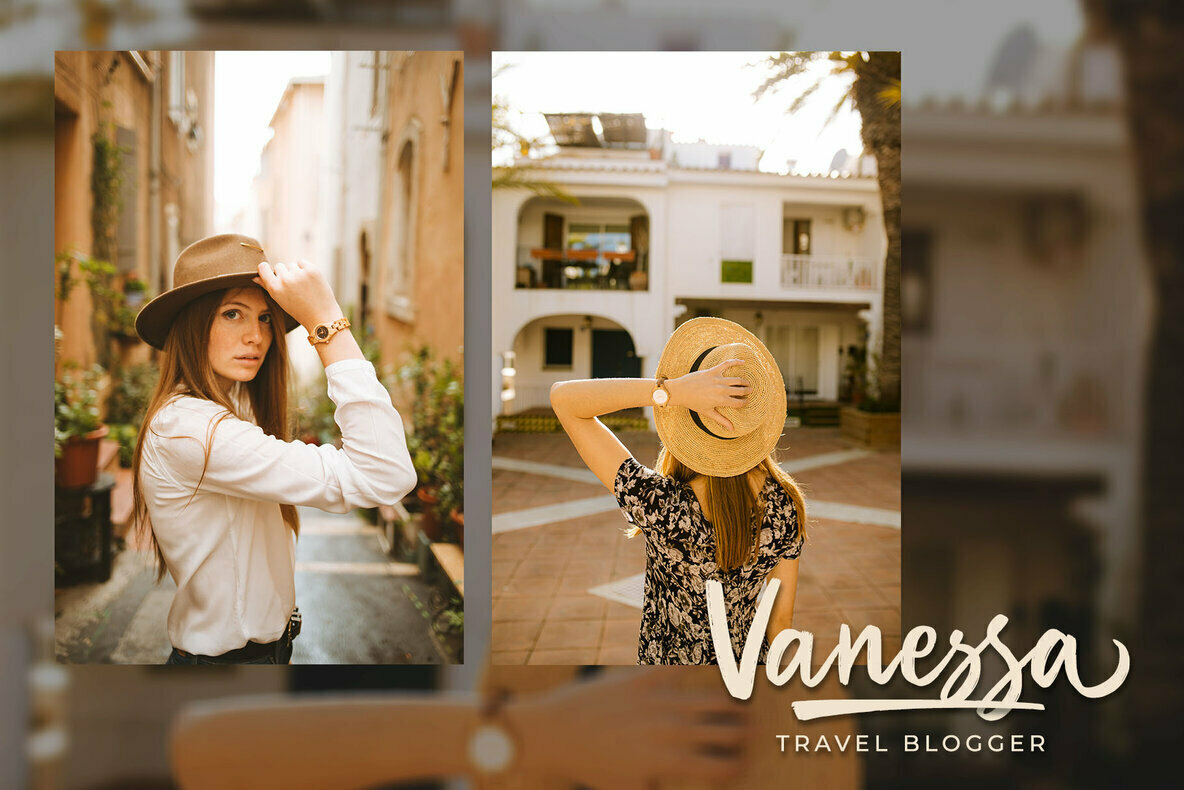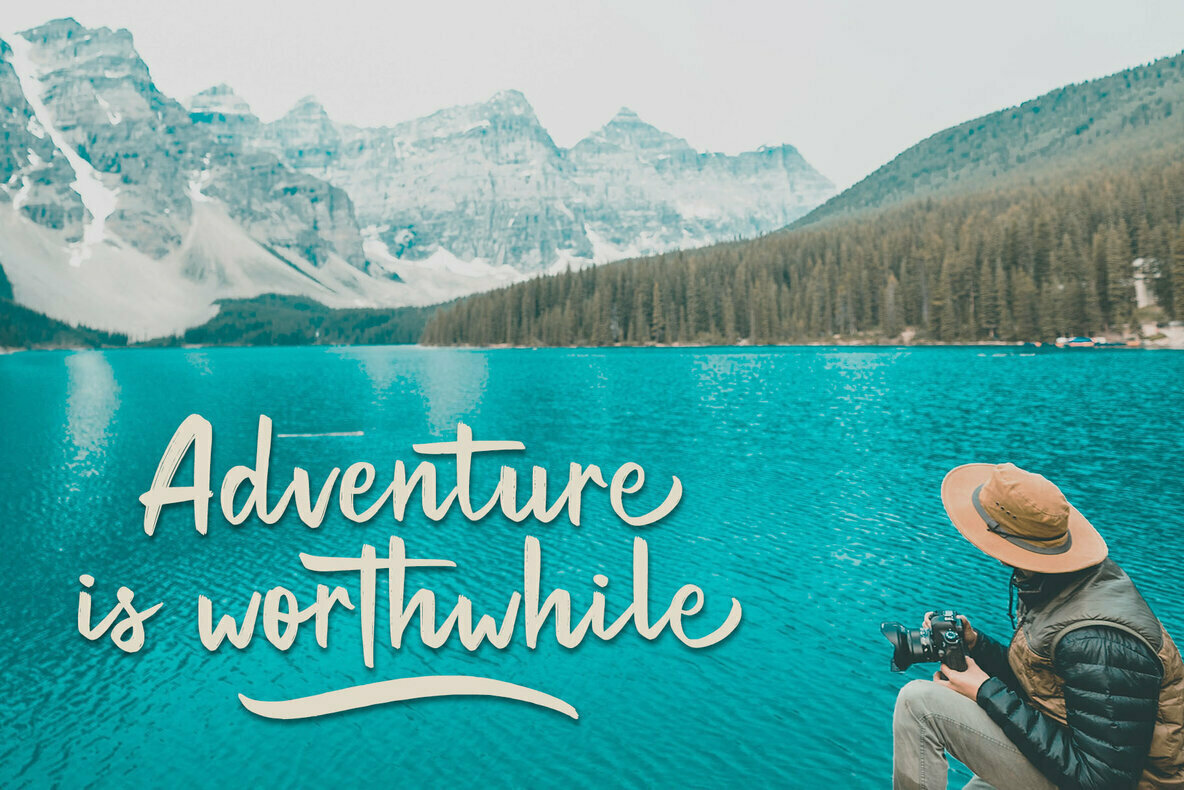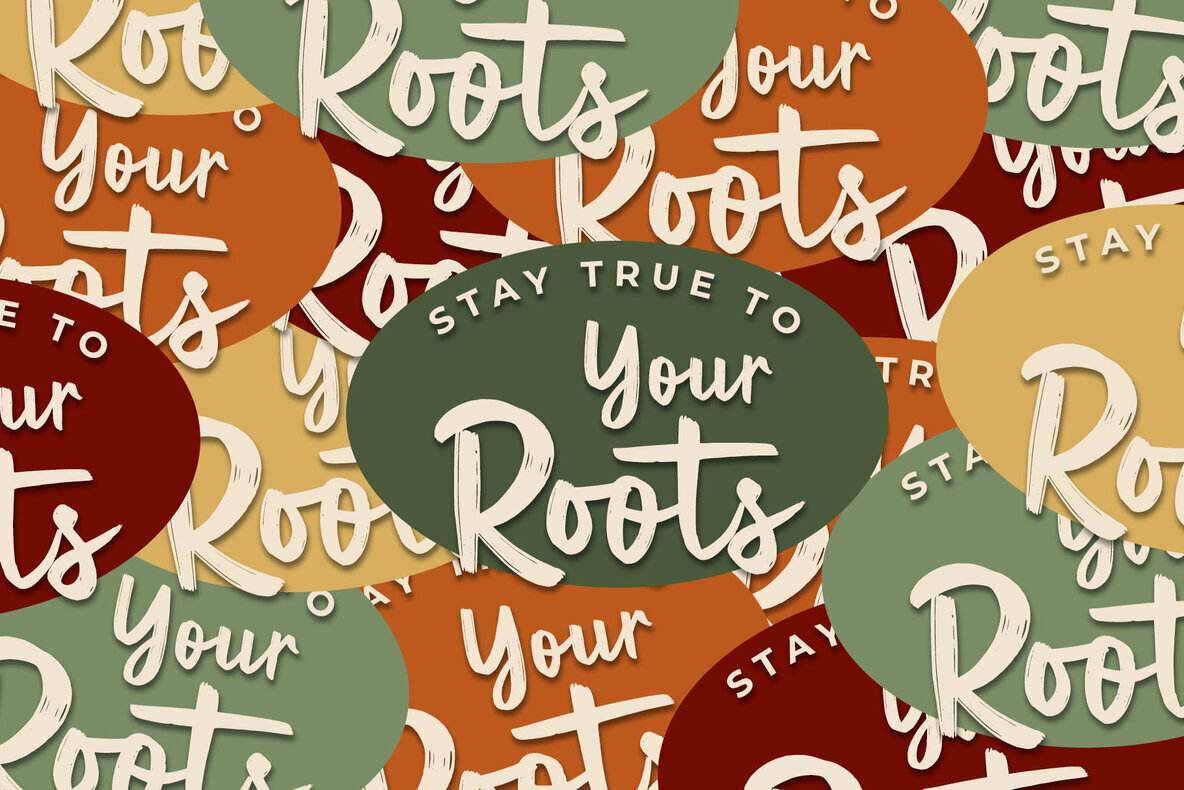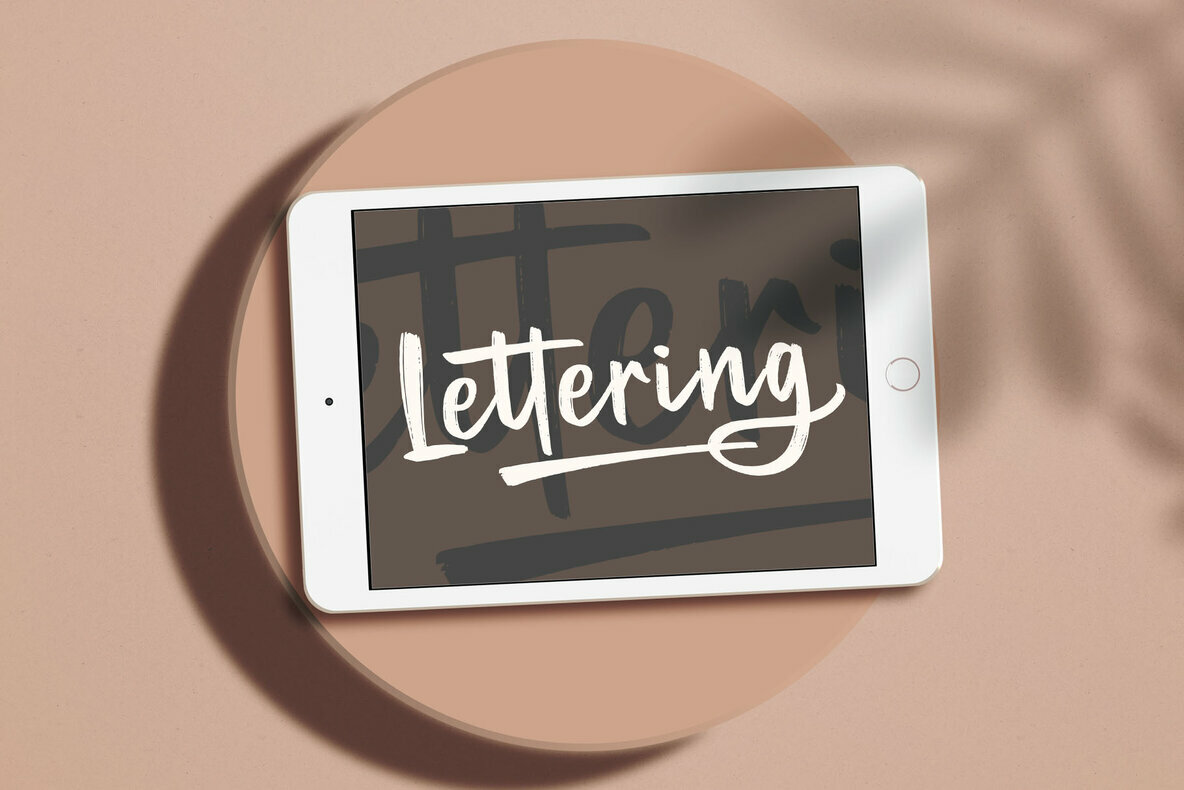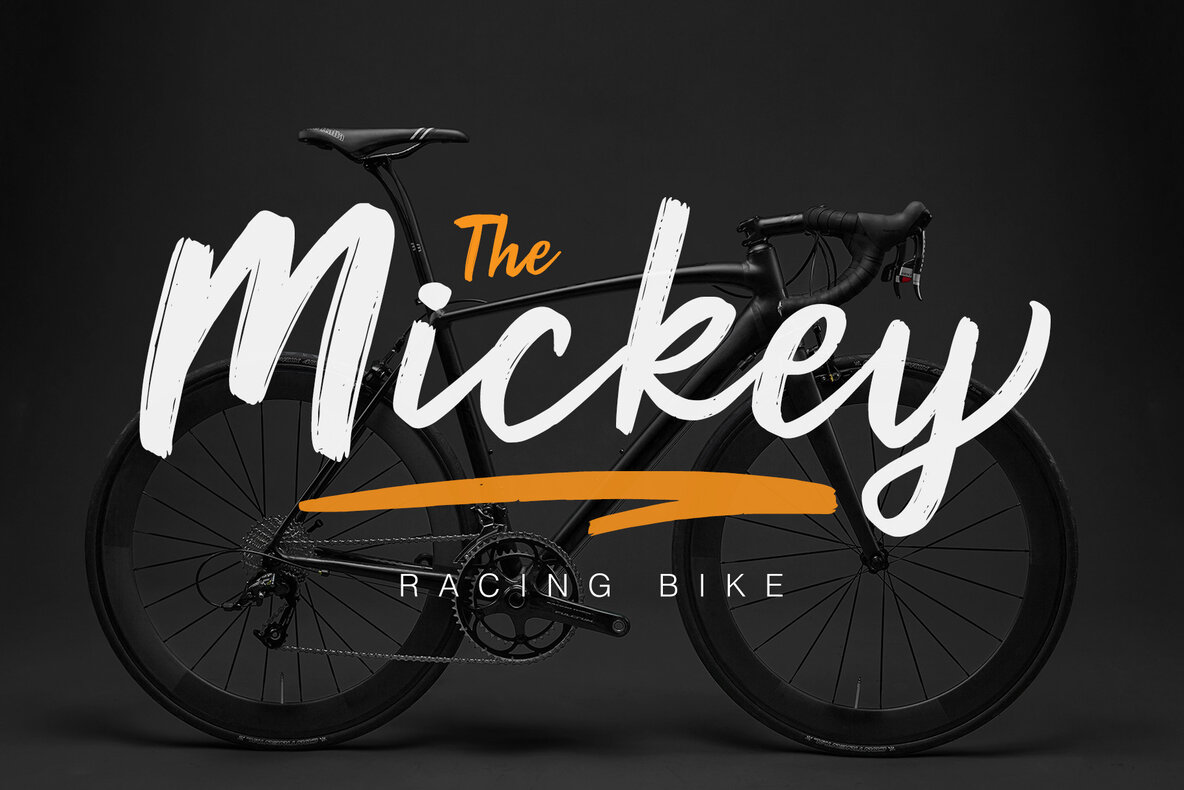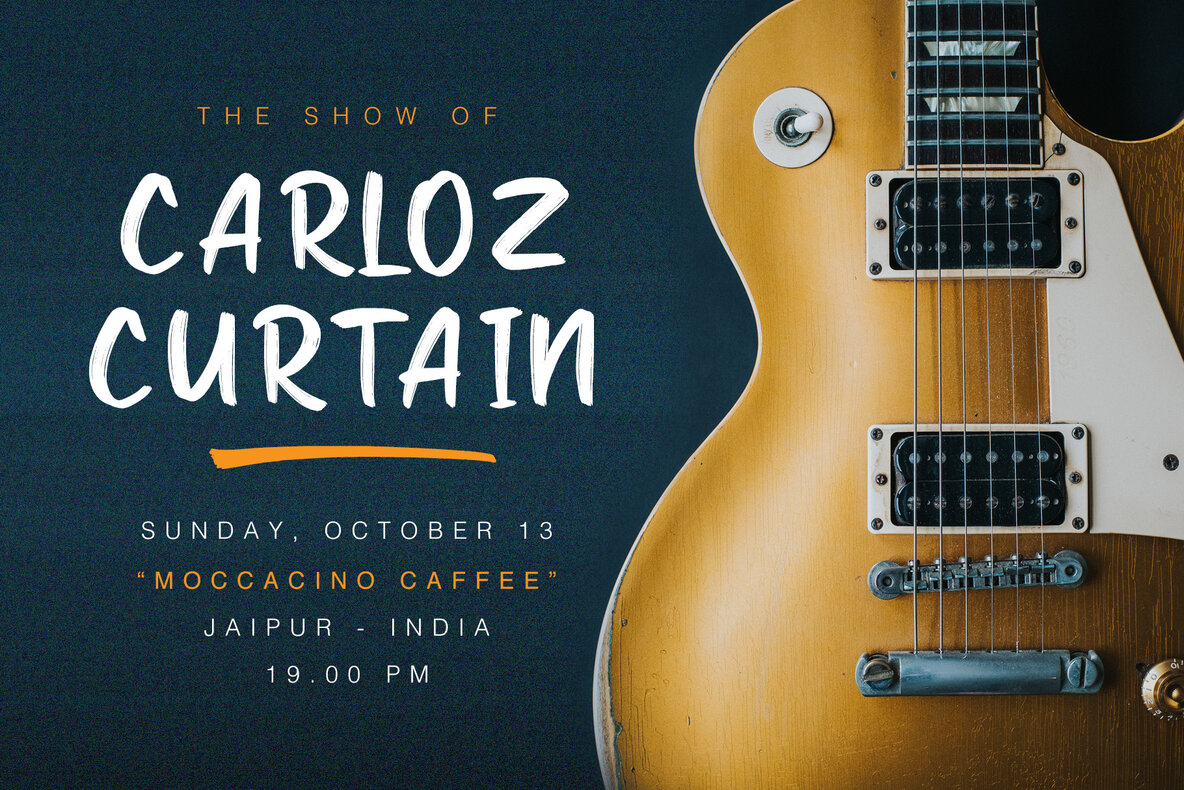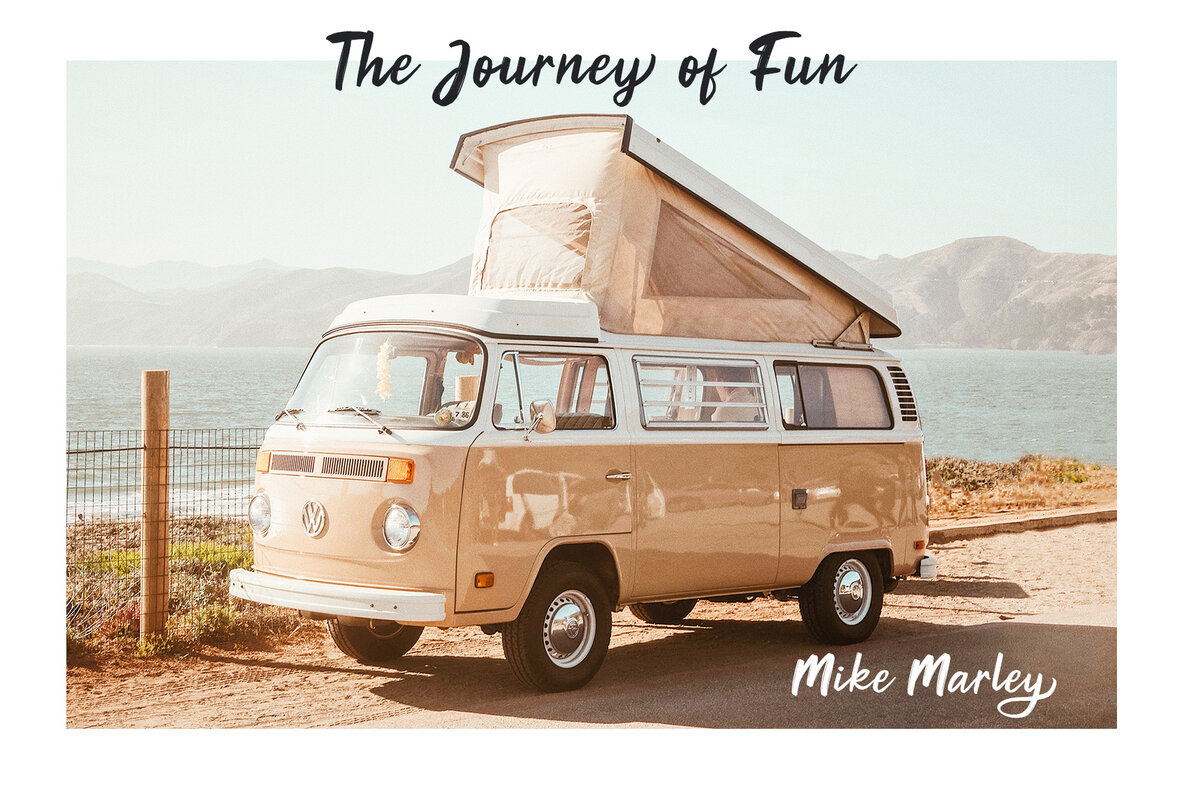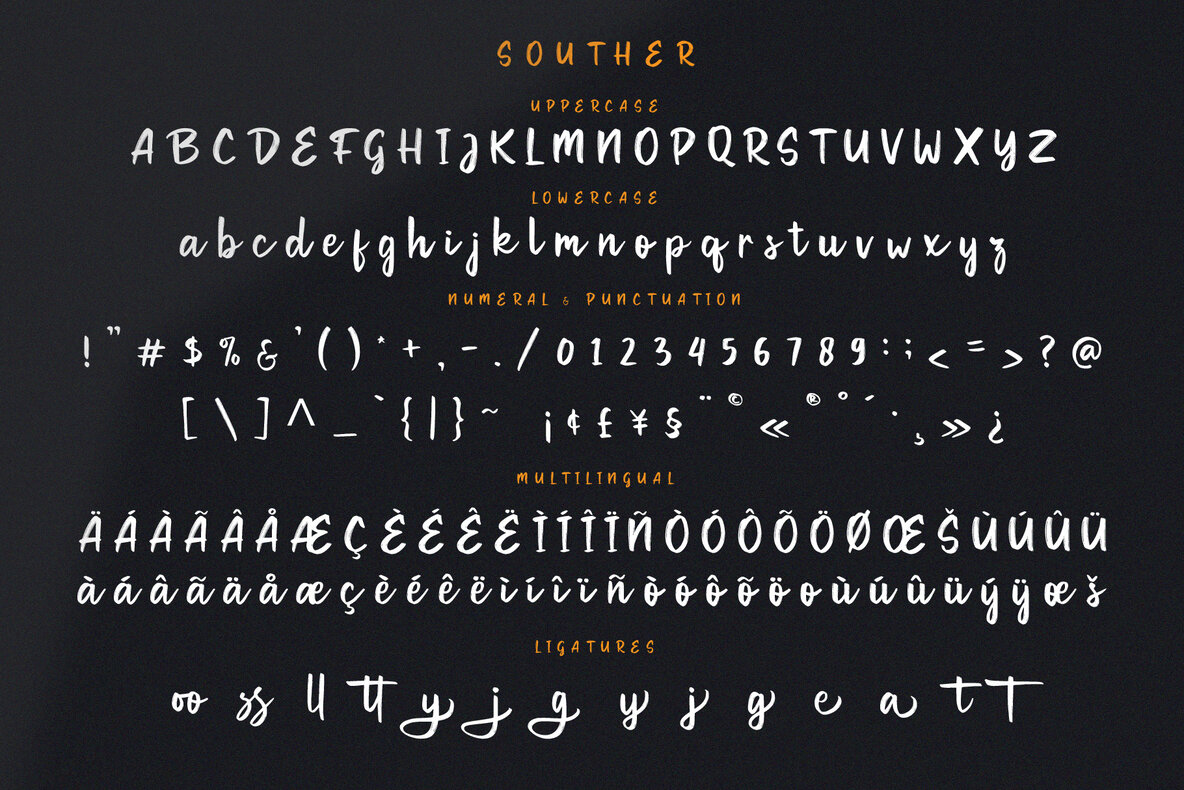
Souther Font
Infusing your creative projects with a touch of elegance, Souther Brush Script Font is inspired by authentic handwriting. It's the perfect choice for fashion labels, e-commerce platforms, trendsetting blogs, and wedding boutiques, aiming for a sophisticated and stylish aesthetic. Adapting seamlessly to diverse design needs, Souther Brush Script Font fits various applications. Whether you're designing a logo, crafting greeting cards, or preparing a branding presentation, its versatility shines. Additionally, it enhances project aesthetics, from blog headers and typography art to book designs and DIY crafts.Souther: Chic Brush Script Font for Upscale Designs